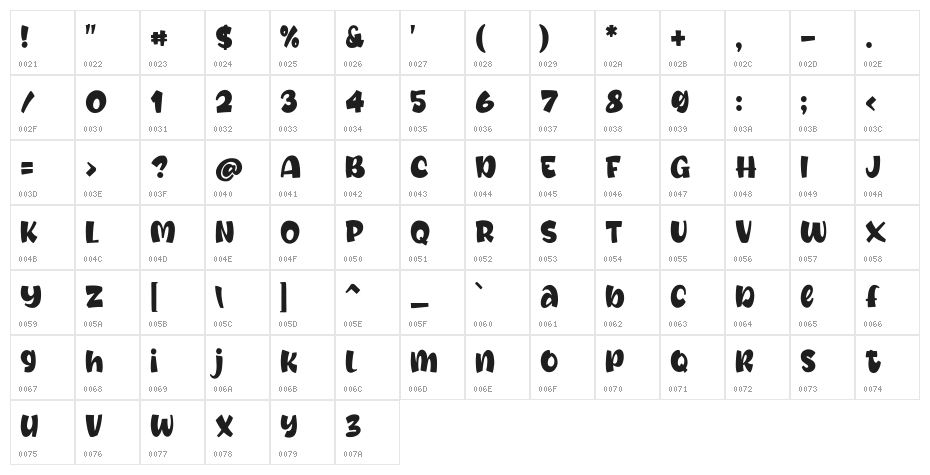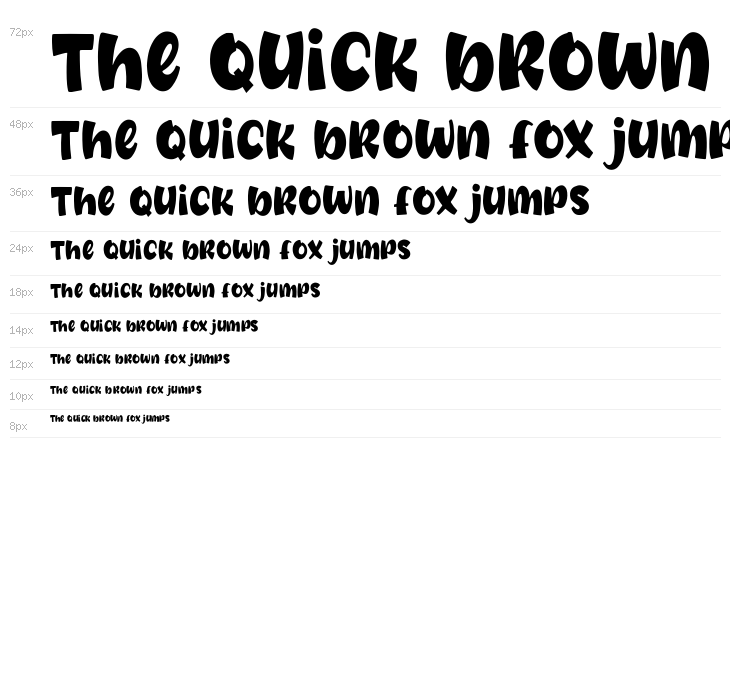
Cincha Regular Font
Cincha Regular Description
This font features a bold and playful style with a distinctively chunky appearance. The characters are rounded and have a whimsical, almost cartoonish quality, making them stand out with a strong visual presence. The uppercase and lowercase letters maintain a consistent style, with exaggerated curves and a slightly uneven baseline that adds to the font's charm. The numbers and special characters follow the same playful design, ensuring a cohesive look across all text elements. This font is ideal for projects that require a fun and engaging aesthetic, such as children's books, playful branding, or eye-catching headlines.
| Overall Style | Playful, Whimsical |
| Proposed Projects | Ideal for children's books, playful branding, eye-catching headlines, and creative posters. |